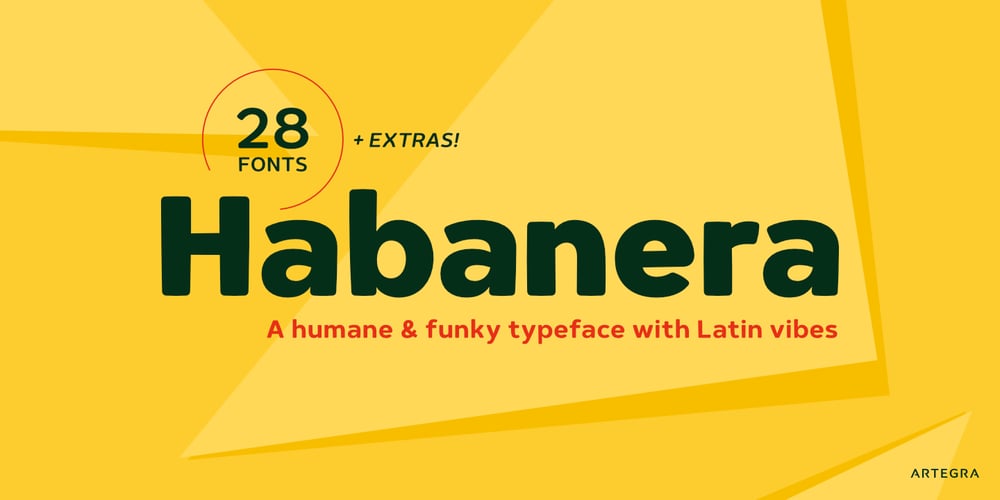
Habanera Font Family was designed by Ceyhun Birinci and published by Artegra. Habanera contains 31 styles and family package options. Habanera’s design is based on the idea of taking perfectionist geometric shapes and making them funky! With gentle tweaks here and there, the glyphs are deliberately designed to look more humane and fun. Same fonts are also presented with round corners, giving it an even more gentle look. Latin poster design and graphic art was an inspiration to design Habanera.